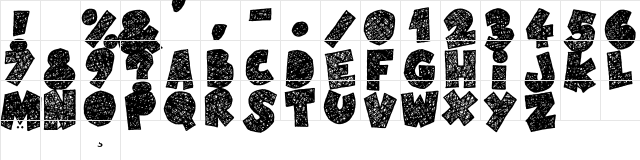
Children's Theater Regular
Design Context for Children's Theater Typeface
Children's Theater trades formality for fun, with bouncy, characterful letterforms that bring warmth and energy to any project.
Font Pairing: Pairs well with a rounded or humanist sans for body copy, maintaining the friendly tone without relying on Children's Theater to carry extended reading.
Pro Tip: Avoid using Children's Theater for long passages of text — it works best for headlines, labels, and short calls to action.